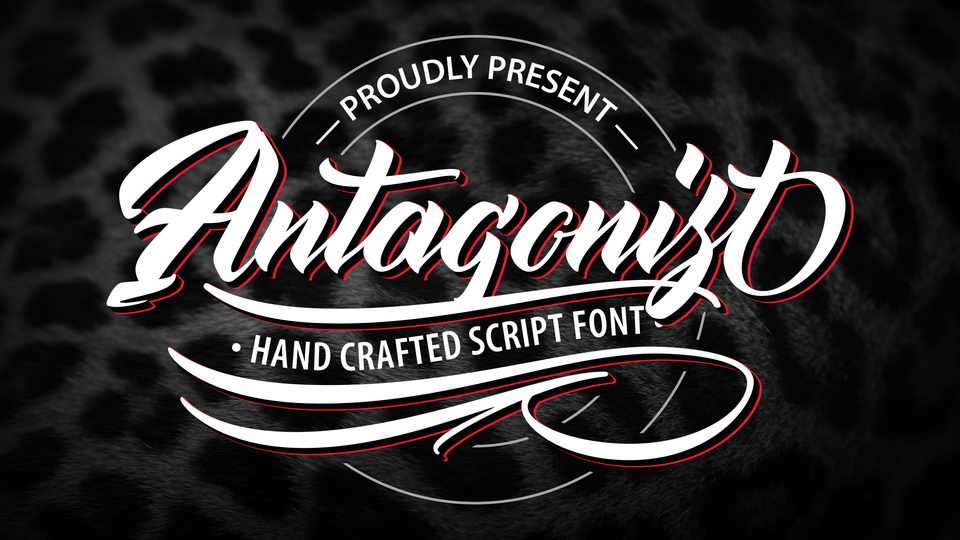
Download Antagonist font, a classy hand lettered script typeface with dynamic flow and fancy look. Antagonist is perfect for labels, logos, branding, t-shirt prints and other projects.
Designer: Vunira Design